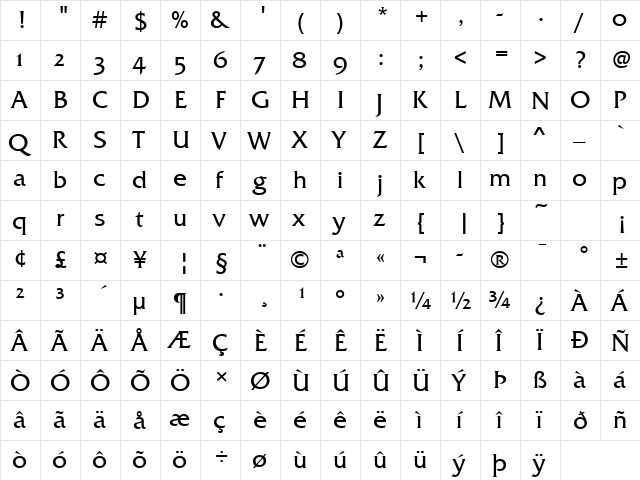
Friz Quadrata OS TT Regular
Design Context for Friz Quadrata OS TT Typeface
Friz Quadrata OS TT is a composed and adaptable typeface that performs quietly and consistently across a wide range of design contexts.